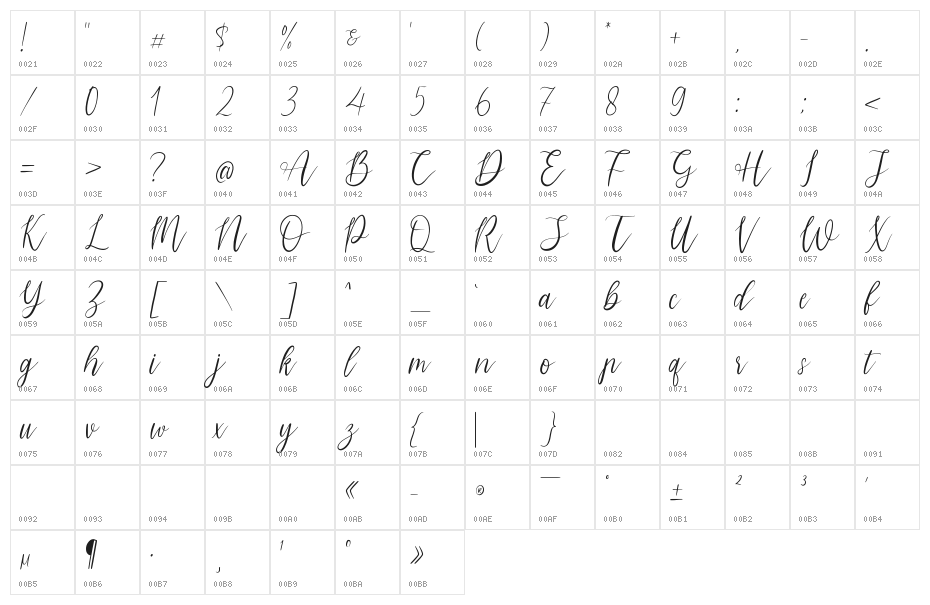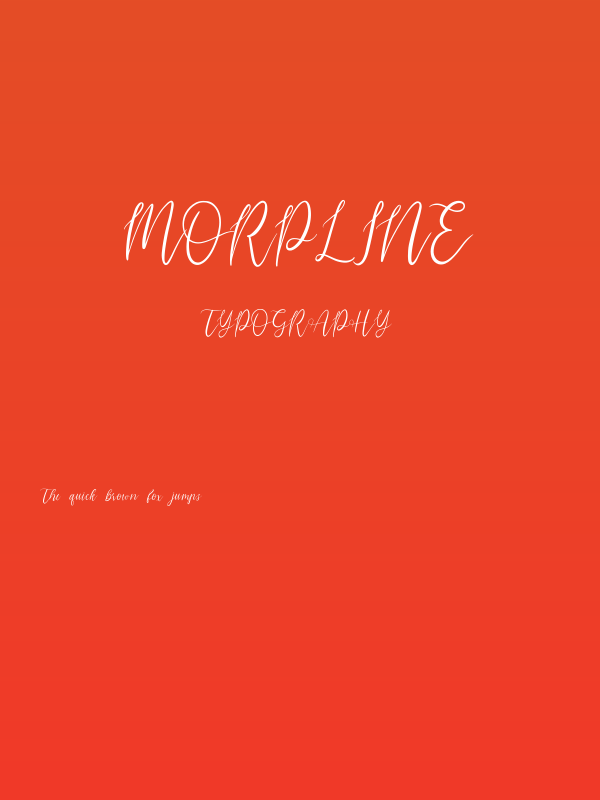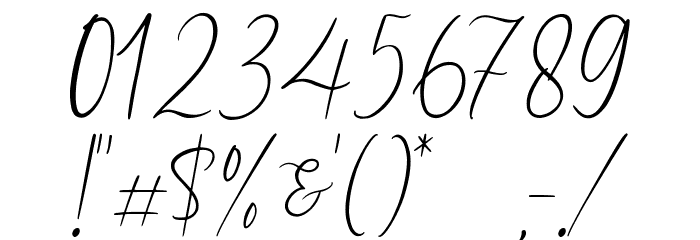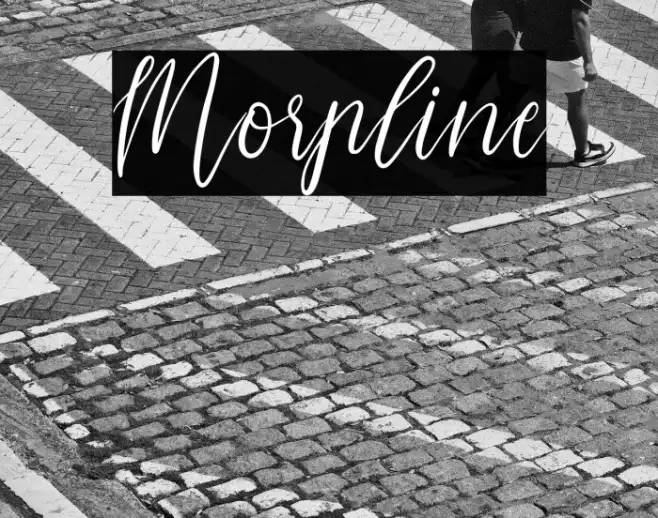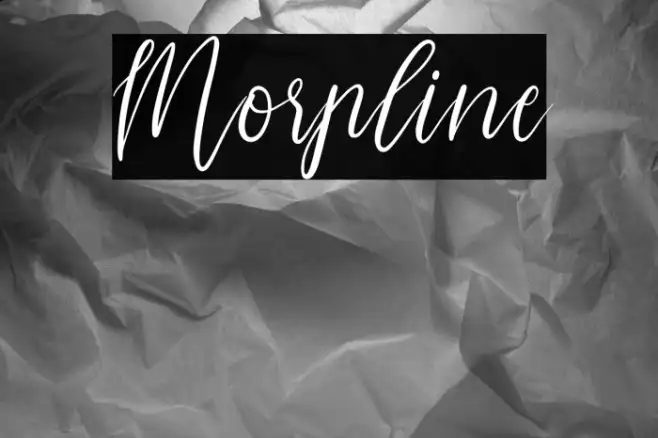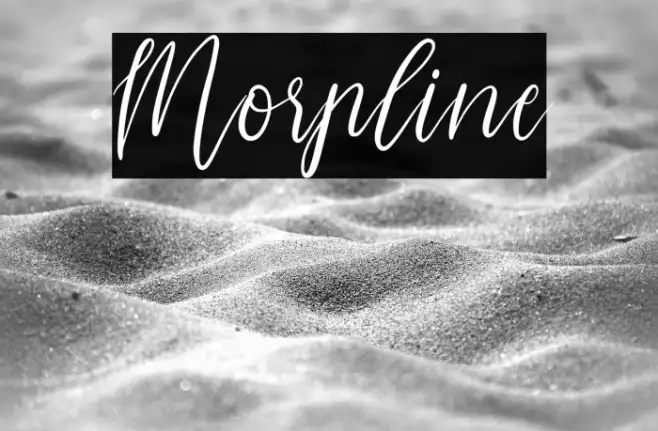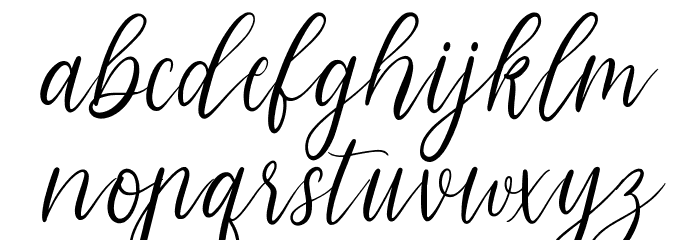
Morpline Font
Morpline Description
This elegant script font features a flowing, cursive style with a modern twist. The uppercase letters are characterized by their graceful loops and swirls, giving them a sophisticated appearance. The lowercase letters maintain a consistent flow, with smooth connections between each character, enhancing readability. The numerals are sleek and stylish, complementing the overall aesthetic. Special characters are thoughtfully designed, maintaining the font's cohesive look. This font is perfect for adding a touch of elegance and sophistication to any project.
| Proposed Projects | Ideal for wedding invitations, branding, logos, and elegant stationery. |